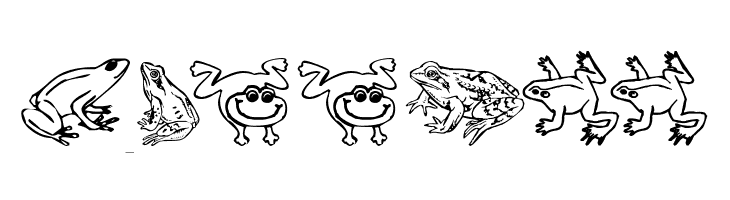
A modern, semi-bold italic font with a sleek, condensed style.
A casual, handwritten font with a playful and informal style.
A diverse collection of ampersand designs ranging from modern to vintage styles.
An elegant script font with classic, flowing curves and decorative flourishes.
A decorative font with detailed amphibian illustrations for each character.
A bold, brush-like decorative font with dynamic and energetic characters.
A bold, jagged font with an electrifying and dynamic style.
A bold, playful 3D font with a jagged outline.
A bold, 3D italic font with a playful and dynamic style.
A jagged, distressed, and condensed font with a bold, energetic style.
A bold, condensed, and italicized font with sharp, jagged strokes.
A bold, jagged font with an edgy, hand-cut appearance.
A bold, expanded italic font with jagged edges for a dynamic and edgy appearance.
A bold, gradient-style font with horizontal line textures for a dynamic look.
A modern, italic font with a gradient effect and dynamic horizontal lines.
A bold, halftone-textured font with a dynamic, distressed appearance.
A bold, italicized font with a halftone effect, perfect for dynamic and eye-catching designs.
A bold, jagged italic font with a dynamic, hand-drawn appearance.
A bold, jagged, and dynamic font with a distressed style.
A bold, jagged font with dynamic, slanted characters.
A jagged, bold font with a dynamic and edgy design.
A bold, jagged font with a dynamic and energetic style.
A bold, jagged, and italicized font with a dynamic and modern style.
A bold, jagged font with a dynamic, zigzag pattern.
A bold, staggered italic font with jagged edges and dynamic style.
A bold, staggered font with a jagged, energetic style.
A bold, jagged font with a rugged, hand-cut appearance.
A bold, italic font with a jagged, energetic style.
A bold, jagged font with a dynamic, edgy style.
A bold, warped, and italicized font with jagged strokes and dynamic movement.
An elegant, flowing script font with interconnected strokes and a handwritten feel.
A bold, brush script font with an expressive and hand-painted style.
A bold, brush-style script font with dynamic and expressive strokes.